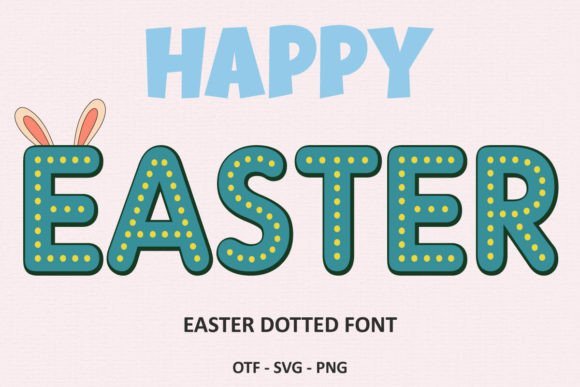
Elevate Your Easter Projects with the Perfect Font
As you’re brainstorming ideas for your Easter-themed designs, have you ever felt like something’s missing – a little something that sets your creations apart from the rest? It’s a moment we’ve all experienced, the “aha!” moment when a single element can make all the difference. For designers looking to add a touch of whimsy and fun to their Easter projects, we’ve got just the thing: the Easter Dotted Font.
This adorable green font with gold dots is more than just a pretty face – it’s a versatile tool that can be used to design a wide range of products, from banners and content to mugs, cards, and social media posts. Whether you’re a seasoned designer or just starting out, the Easter Dotted Font is sure to bring a smile to your customers’ faces and set your designs apart from the crowd.
Easter Dotted Font Key Features
- Font Family: Easter Dotted Font is a unique, hand-drawn font with a playful and whimsical feel.
- Unique Characteristics: Features a distinctive dotted design, with varying dot sizes and spacing to create a dynamic and eye-catching effect.
- Font Style: Includes multiple font styles, including Regular, Bold, Italic, and Bold Italic, to provide versatility in design applications.
Easter Dotted Font Review
I recently had the chance to work with the Easter Dotted Font, and I’m here to share my honest thoughts.
- ✨ The playful, whimsical vibe of the font is perfect for spring and Easter-themed designs. It adds a touch of fun and festivity to any project.
- ✨ The font’s high level of customization allows for a wide range of color and size options, making it easy to match with any design style.
- ✨ The dotted design element gives the font a unique and eye-catching feel, making it stand out from more traditional fonts.
- ⚠️ The font may be too busy or overwhelming for certain designs, especially those that require a more minimalist approach.
- ⚠️ The dotted design element can make the font difficult to read in smaller sizes or at a distance.
- ⚠️ Some users may find the font’s quirky style to be off-putting or not to their taste.
Overall, I think the Easter Dotted Font is a great choice for designers looking to add a playful touch to their projects. While it may have some limitations, the font’s unique design and high level of customization make it a valuable addition to any design toolkit.
Easter Dotted Font is ideal for creating Easter-themed designs, such as invitations, cards, and decorations. It’s also suitable for adding a playful touch to presentations, reports, and social media graphics. Experiment with different font sizes, colors, and spacing to get the most out of this unique font.